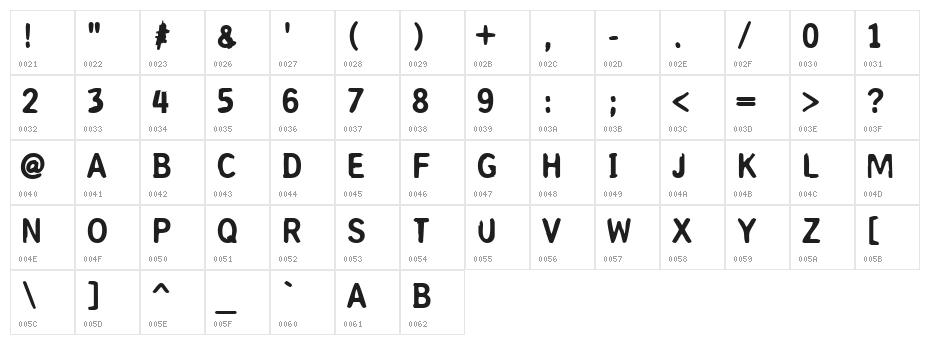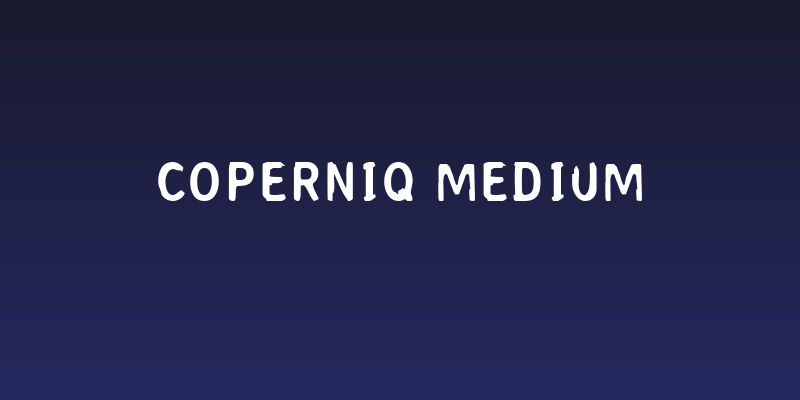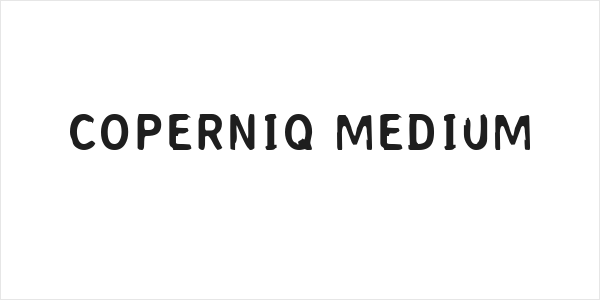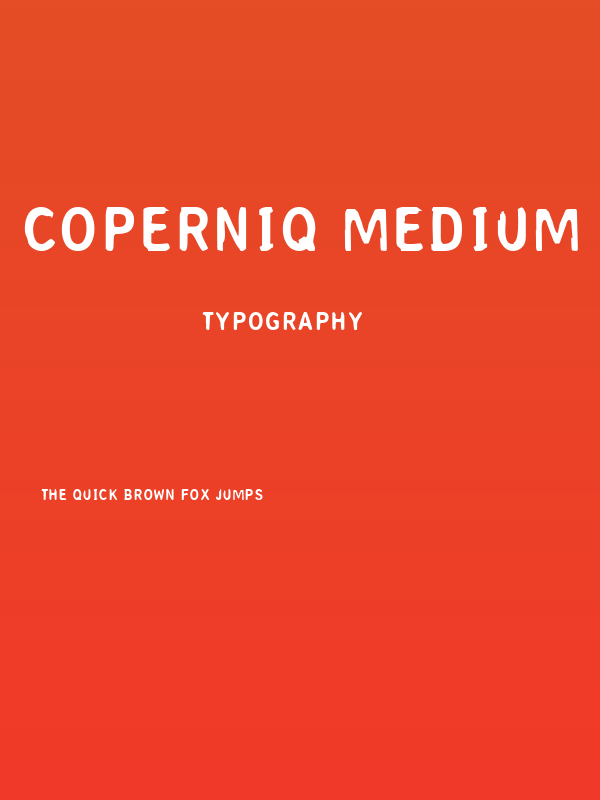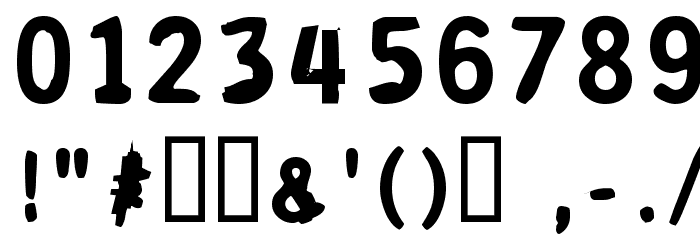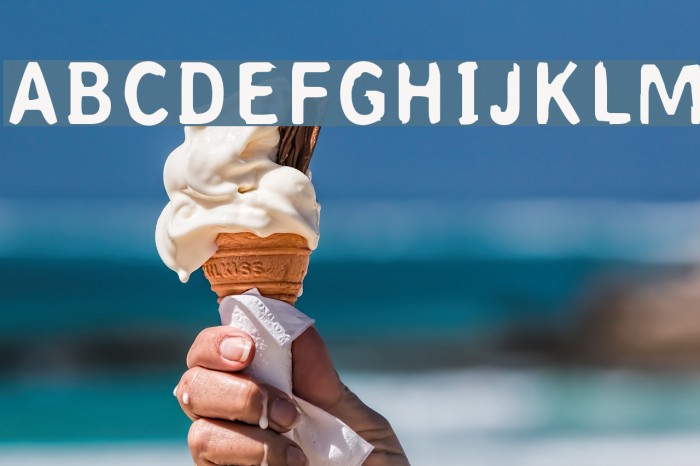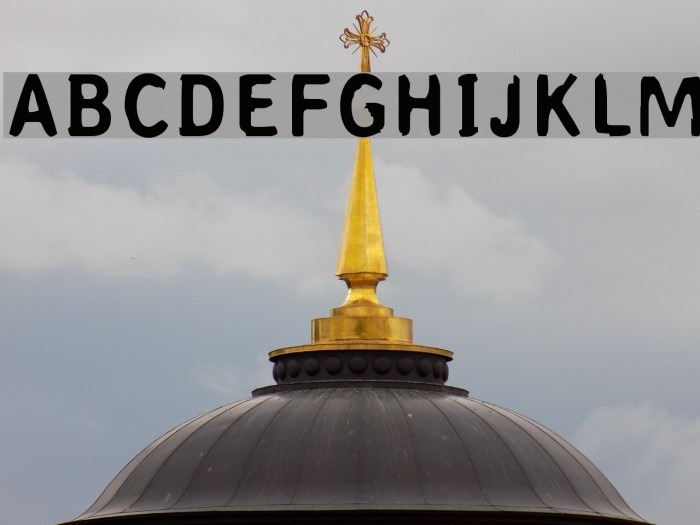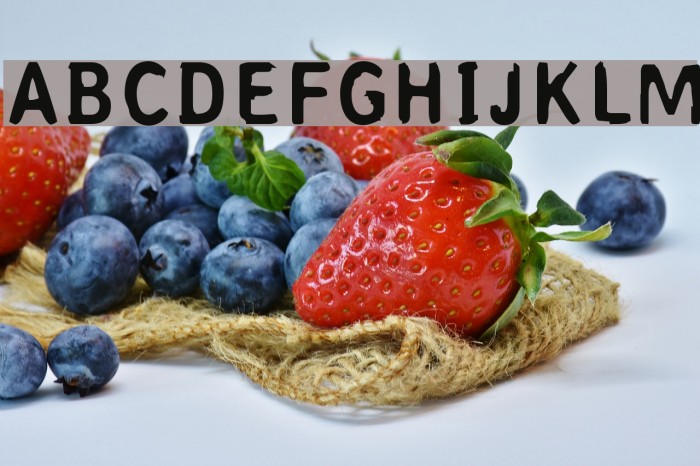
Coperniq Medium Font
Coperniq Medium Description
This font features a bold and playful design with a slightly irregular and hand-drawn appearance. The characters are rounded with a consistent thickness, giving it a friendly and approachable feel. The uppercase letters are prominent and well-defined, while the lowercase letters maintain a similar style, ensuring readability. The numbers are bold and clear, matching the overall aesthetic of the font. Special characters are included, maintaining the same playful style. This font is suitable for projects that require a casual and informal touch, making it ideal for creative and artistic applications.
| Proposed Projects | Ideal for children's books, creative posters, casual branding, and playful invitations. |